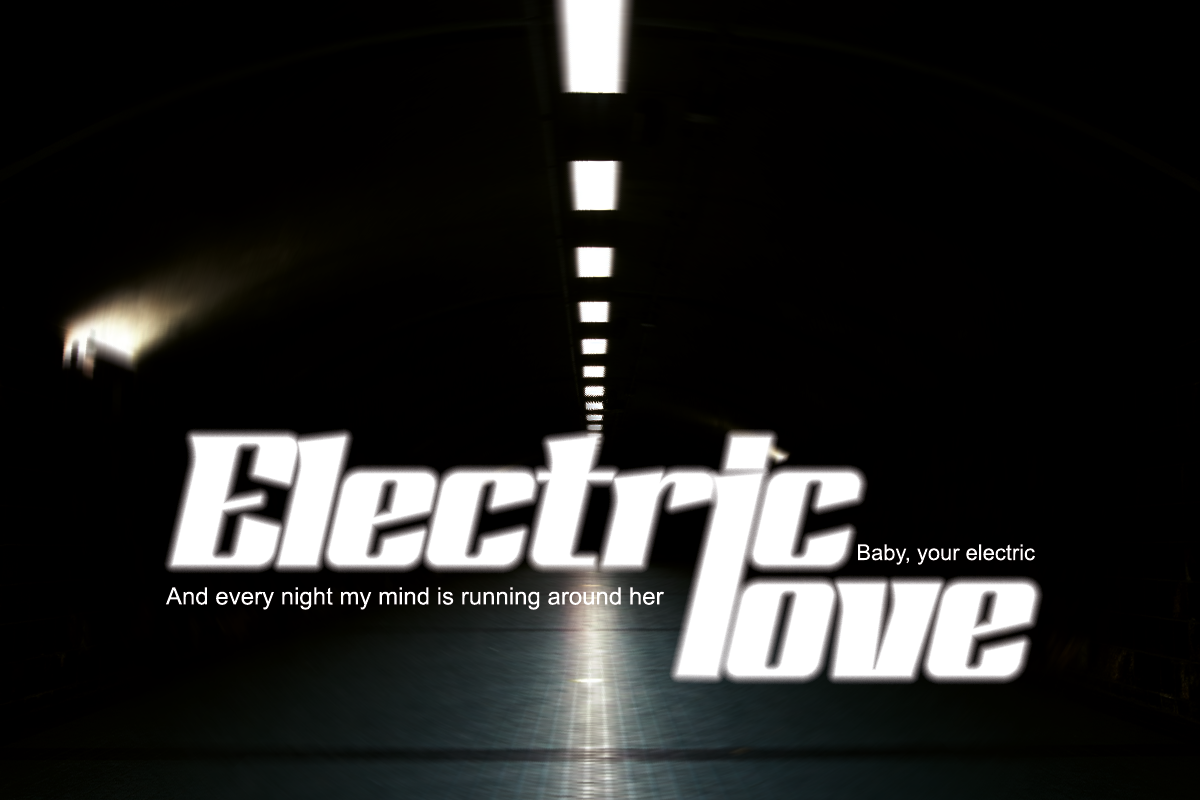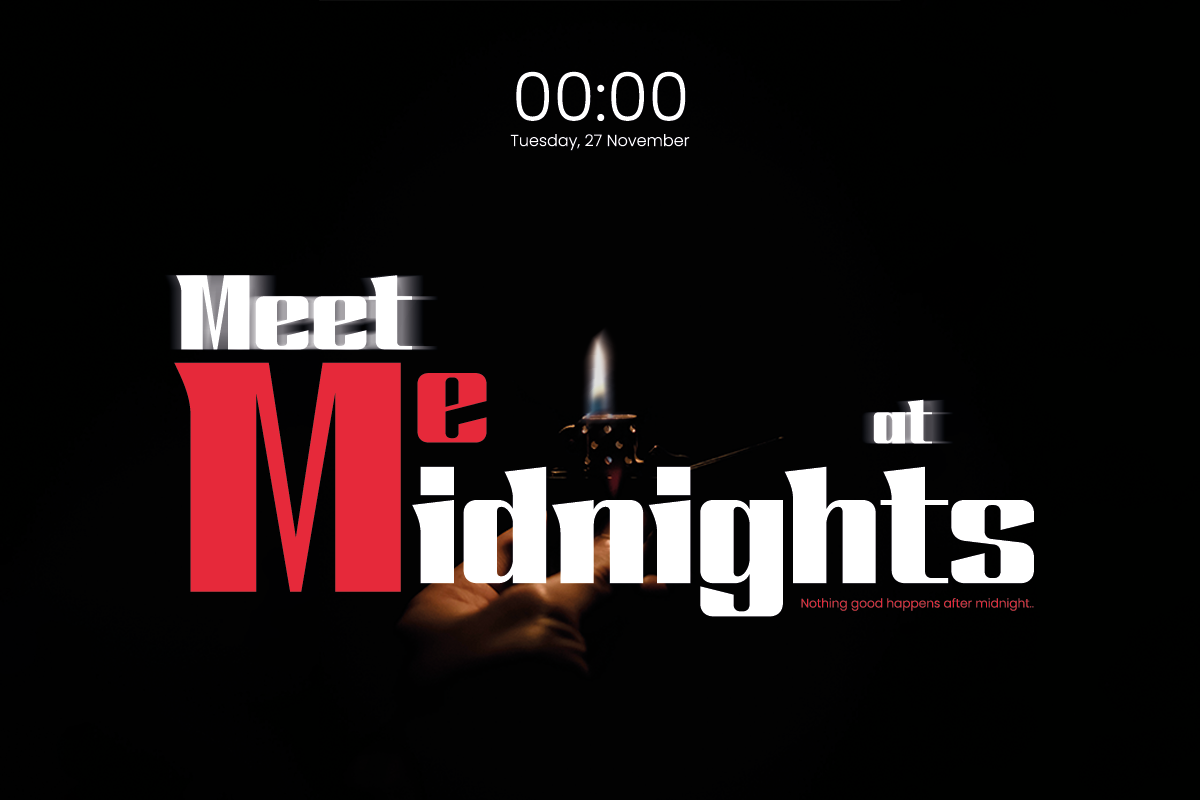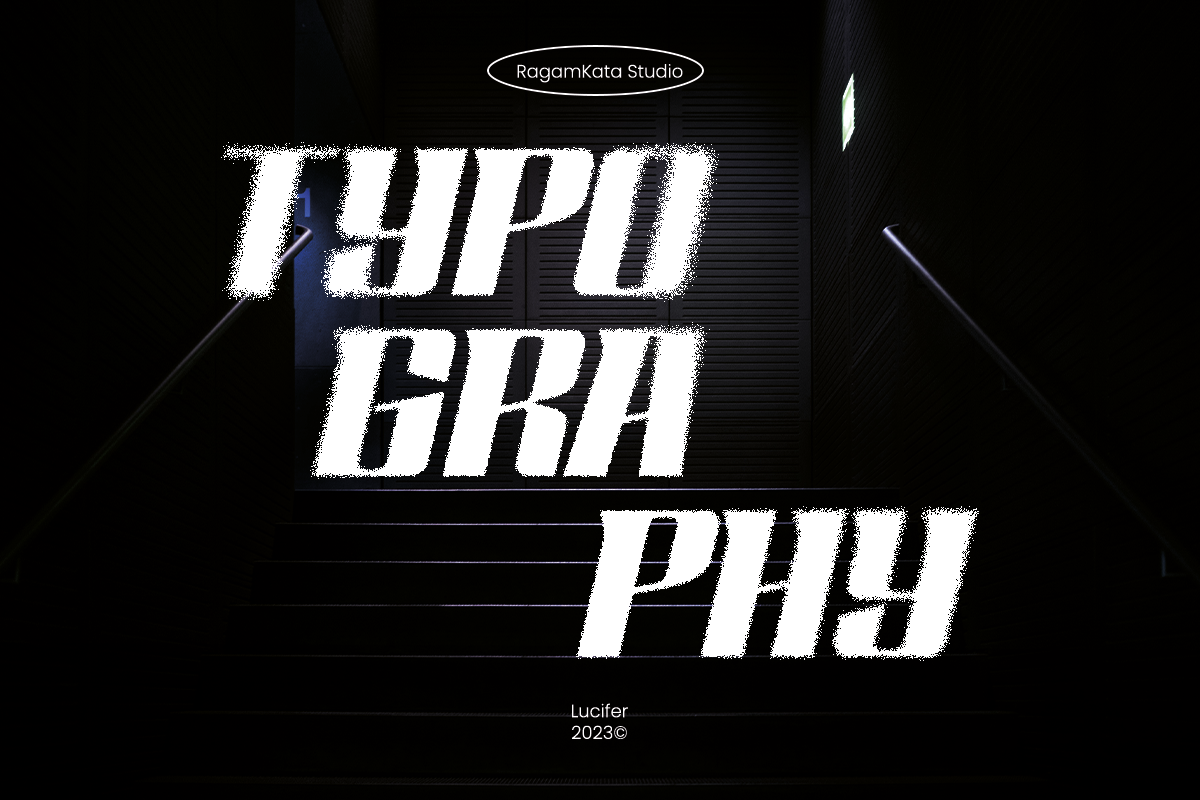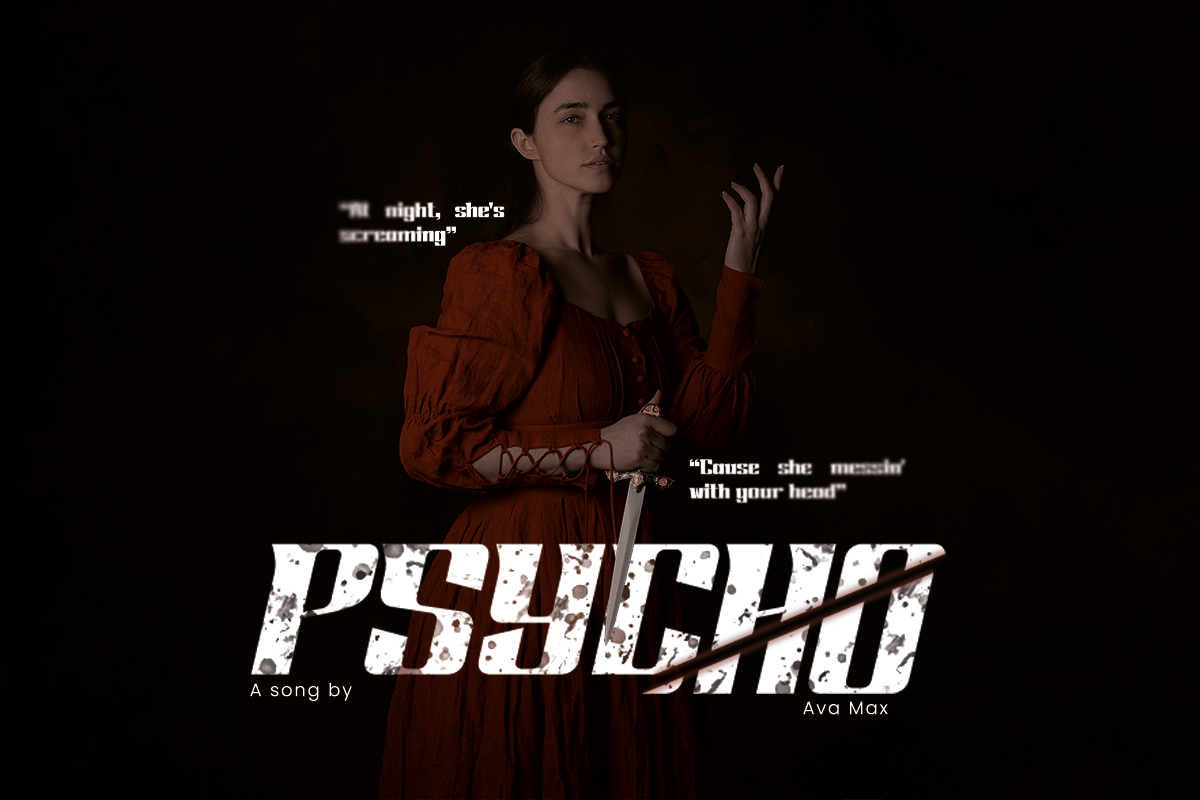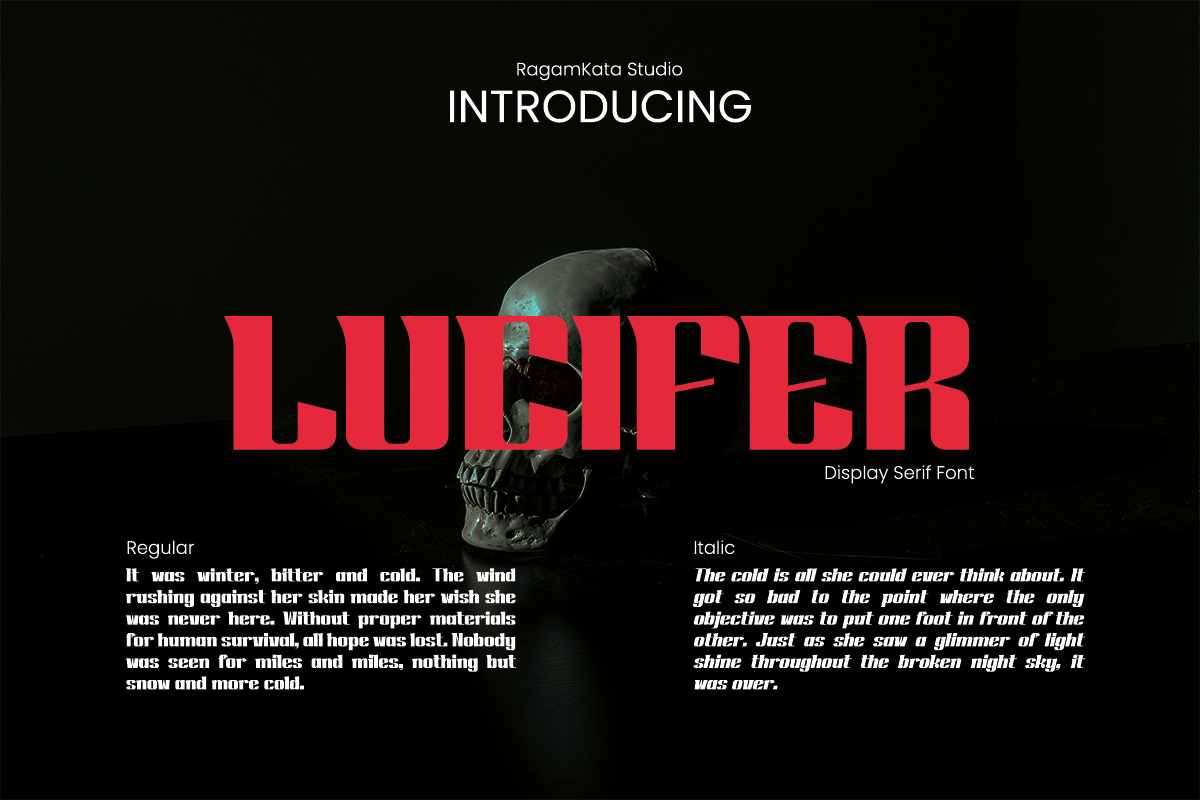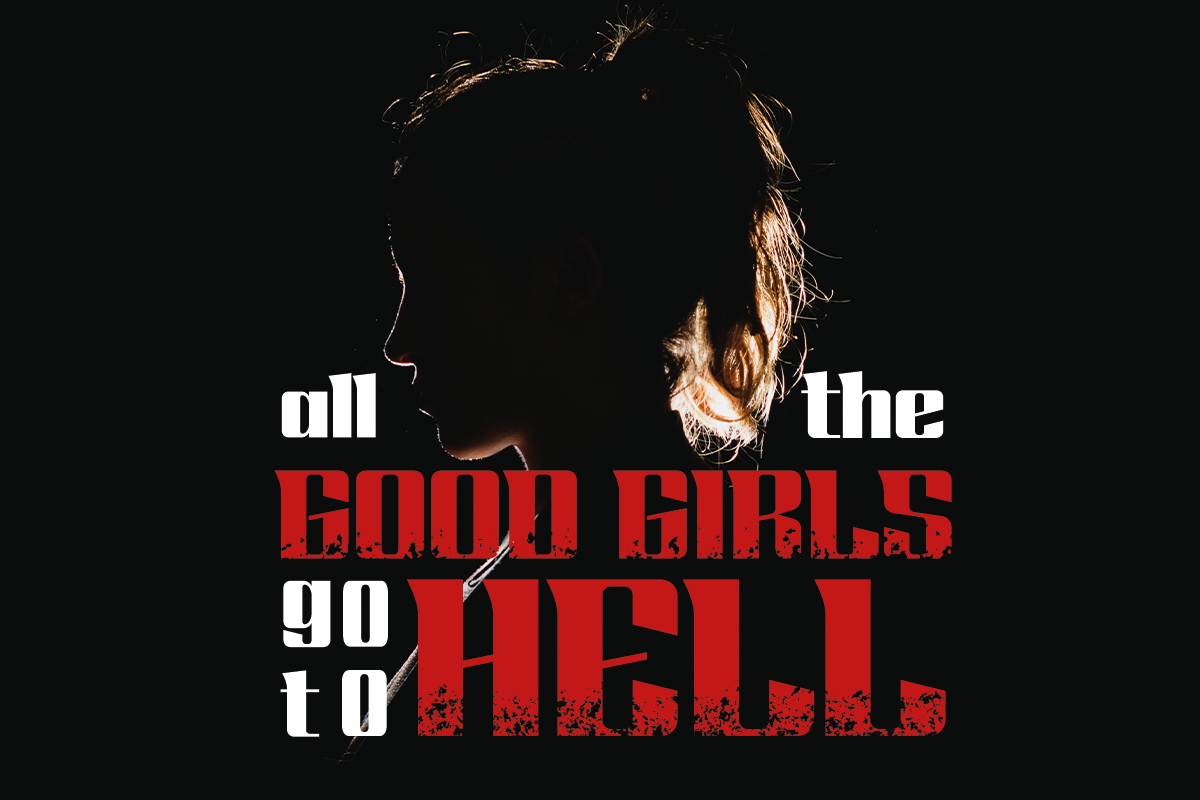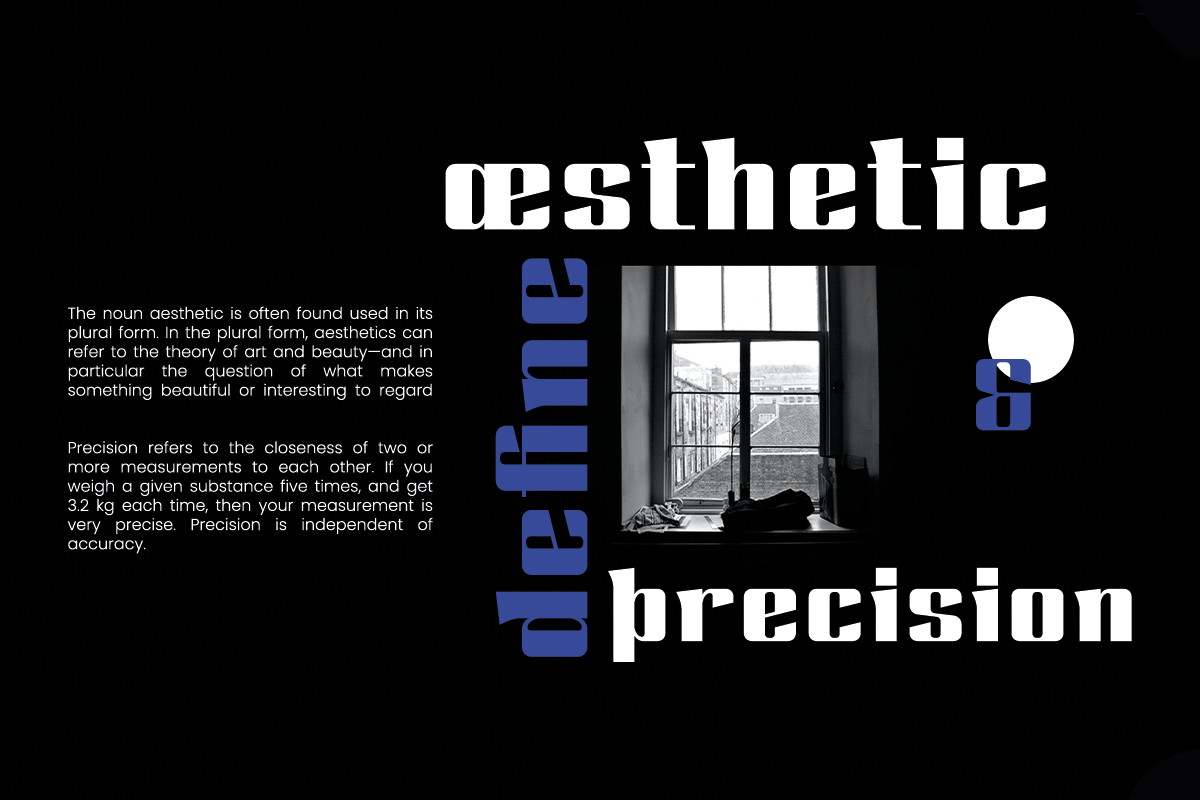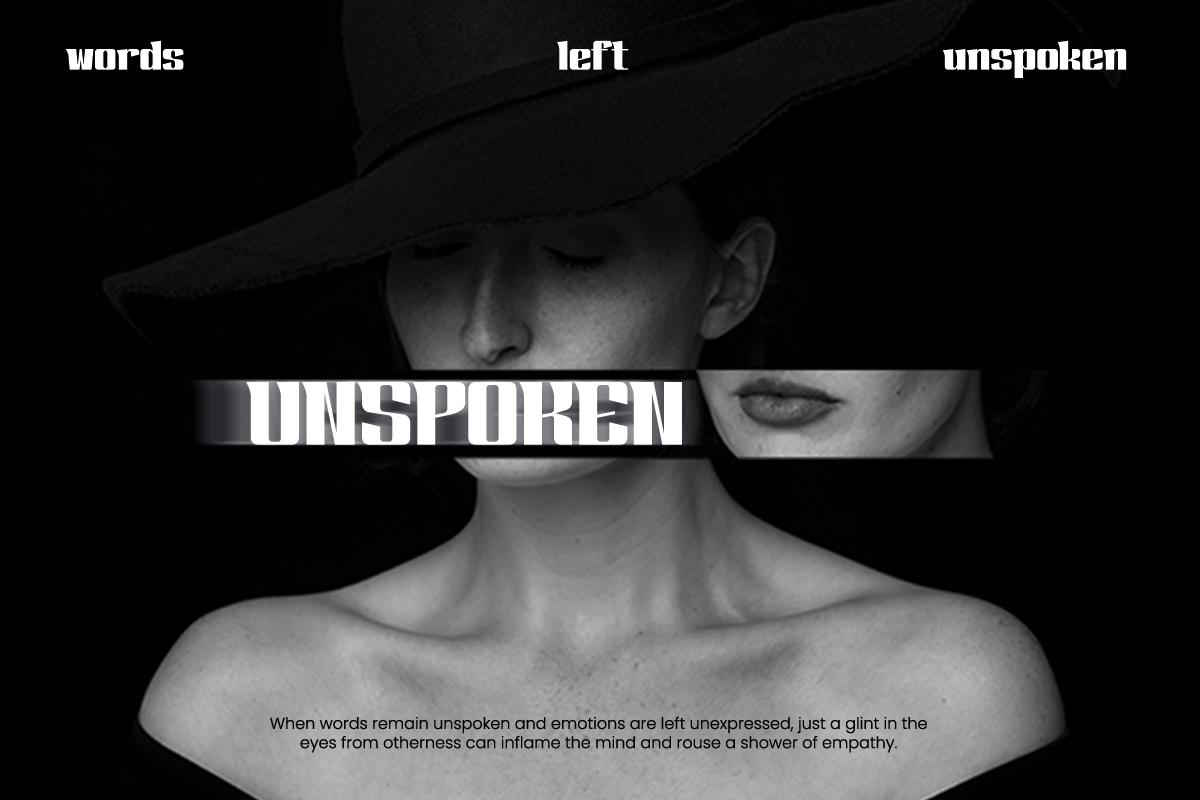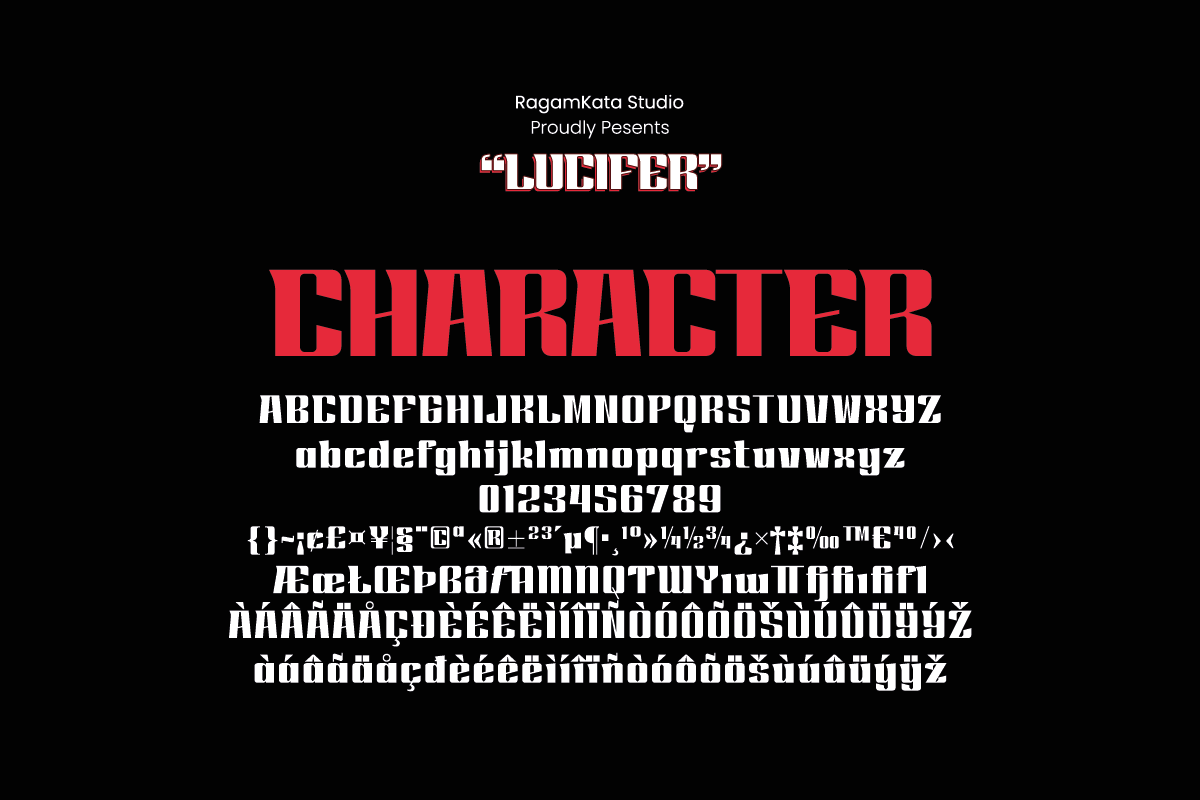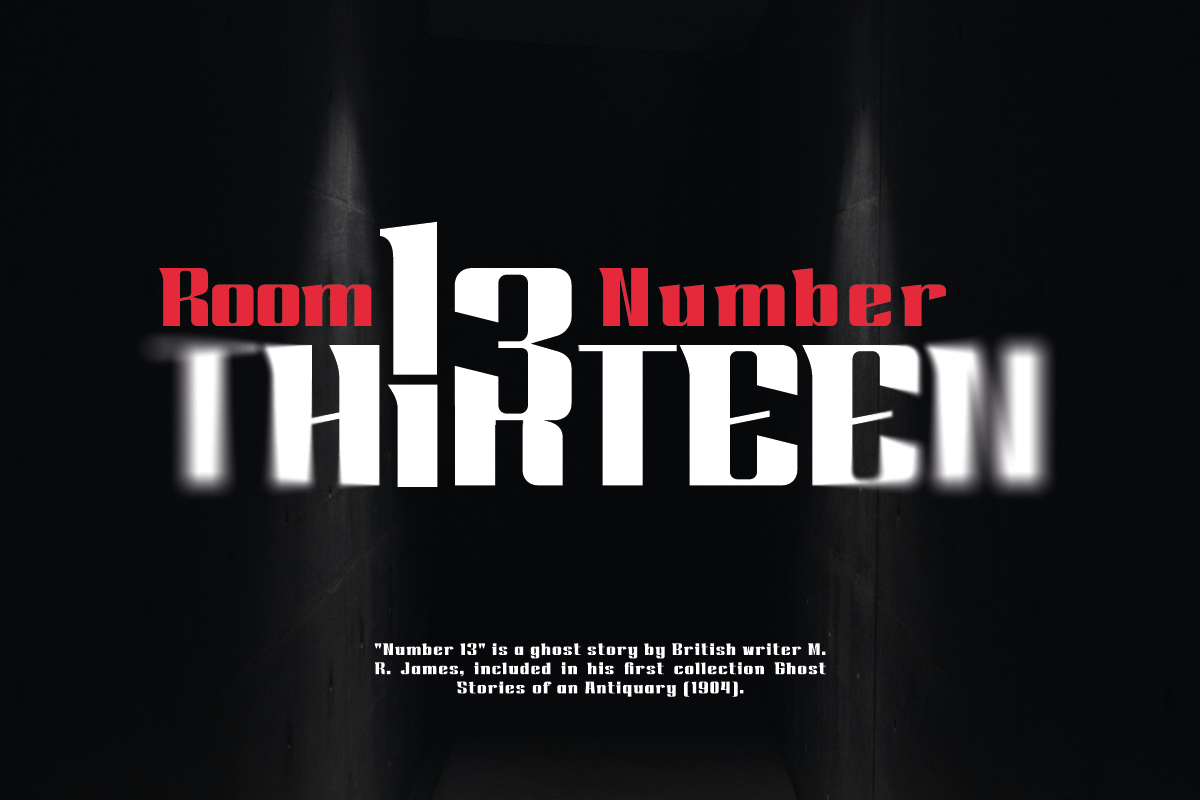
Lucifer - Modern Display Font
Lucifer is Modern Display Font. This typeface is perfect for branding, logos, headlines, Captions. or simply as a stylish text overlay to any background image.
Lucifer Features: • Uppercase & Lowercase • Alternates • Numerals & Punctuation • Accented characters • Format File: TTF,OTF,WOFF,WOFF2 • Multilingual Support • Unicode PUA Encoded